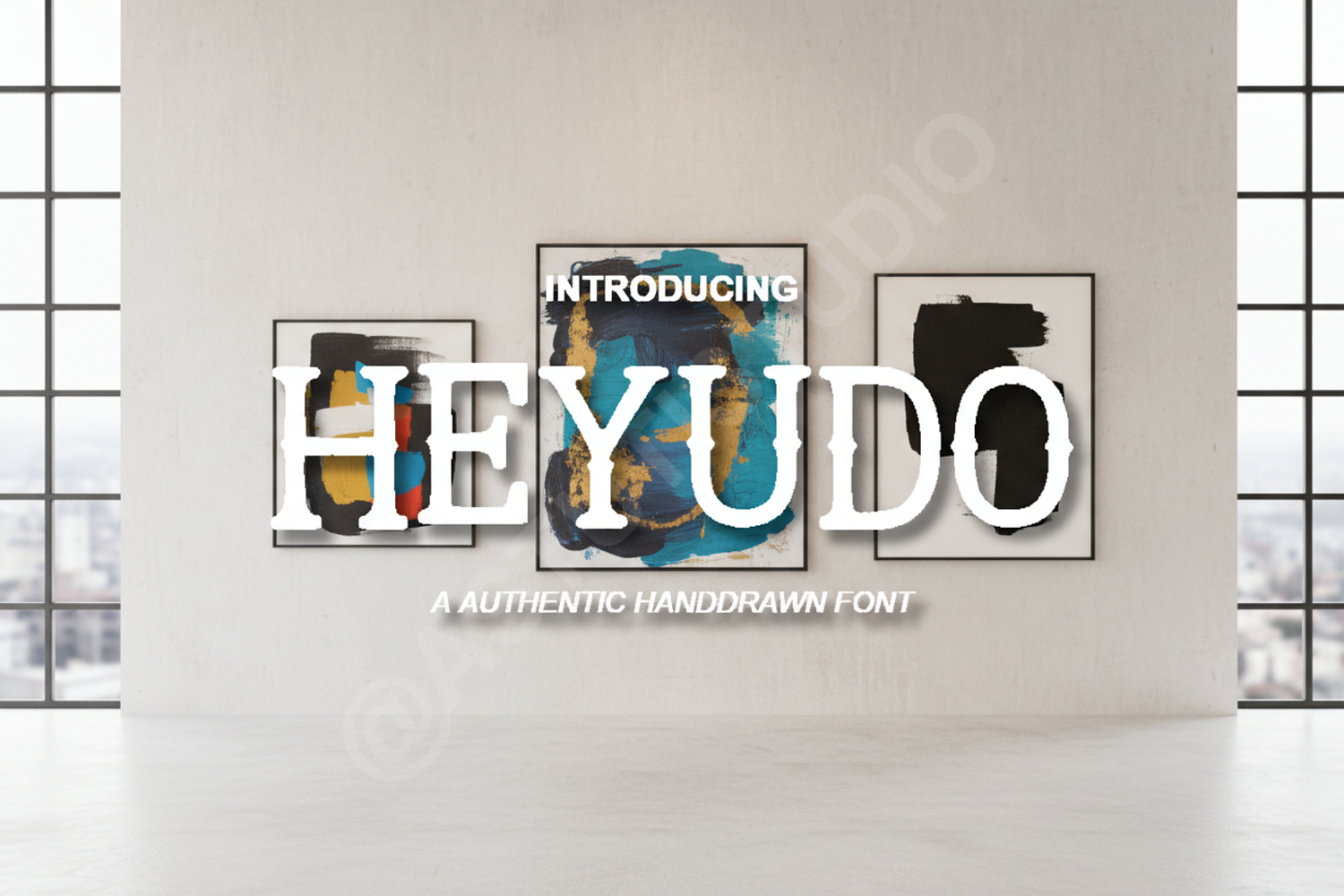
Heyudo - Modern & Playful Display Typeface
Heyudo
Heyudo is a premium display font that perfectly balances modern aesthetics with a playful personality. Designed for versatility, this typeface features clean lines and unique curves that make it stand out in any creative composition. Whether you are working on a minimalist project or a bold advertisement, Heyudo provides the professional touch your designs deserve to capture attention instantly.
- Branding and Identity: Create a memorable brand presence with a distinctive, friendly look.
- Social Media Graphics: Perfect for eye-catching Instagram posts, stories, and YouTube thumbnails.
- Product Packaging: Enhance your physical goods with professional and approachable typography.
- Posters and Print: Maintain high-resolution clarity for large-scale print materials and flyers.
- Children's Media: Friendly and legible letterforms ideal for books, toys, and educational content.